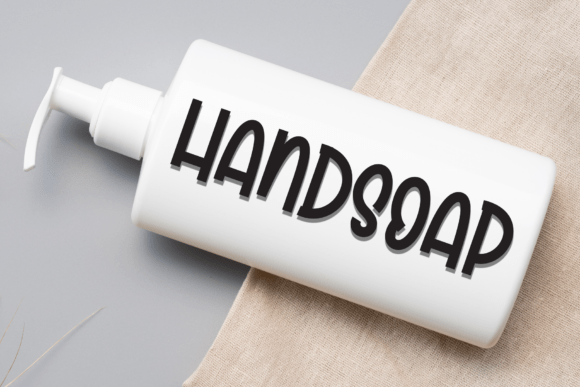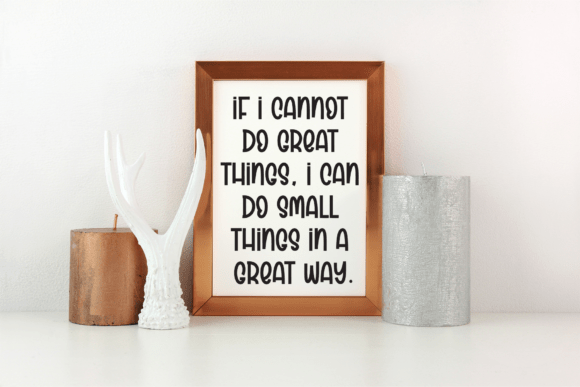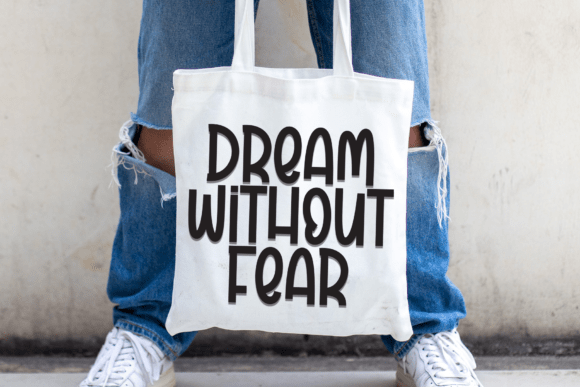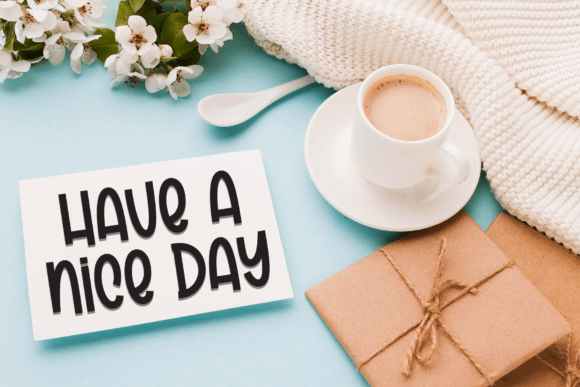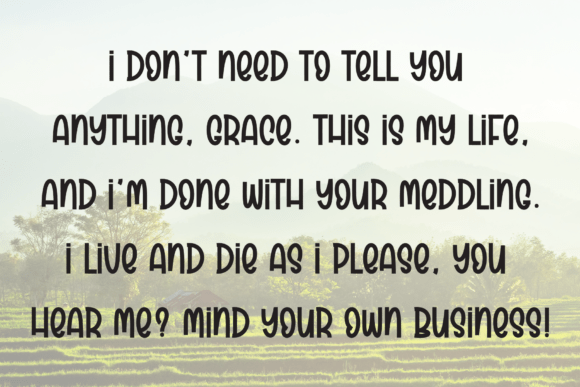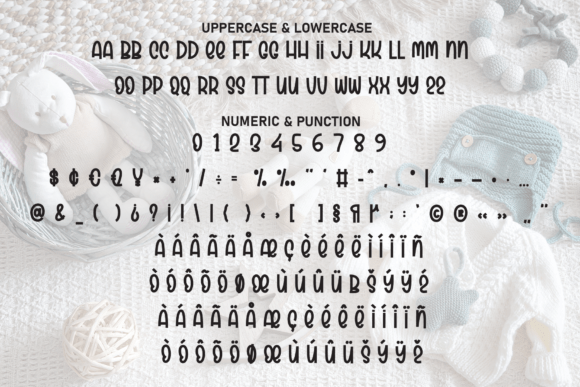
Baby Boho Font: Add a Touch of Whimsy to Your Designs
Are you looking for a font that can add a dash of sweetness and friendliness to your designs? Look no further than the Baby Boho Font! This charmingly authentic, handwritten display font is perfect for personalizing your wedding invitations, cards, or any design endeavor that demands a delightful touch.
What is Baby Boho Font?
Baby Boho Font is a unique and enchanting font that exudes a sense of playfulness and joy. Its distinctive style is sure to lend a charming feel to your stunning visual narrative. This font is designed to add a touch of whimsy to your creative projects, making it perfect for designers and crafters who want to create something truly special.
Key Features of Baby Boho Font
- Handwritten Display Font: Baby Boho Font is a handwritten display font that has a personal and authentic feel to it.
- Sweet and Friendly: This font exudes sweetness and friendliness, making it perfect for designs that require a touch of warmth and personality.
- Playful and Whimsical: The playful and whimsical nature of Baby Boho Font makes it a fabulous choice for adding lightness and joy to your text.
- Perfect for Personalization: This font is perfect for personalizing your wedding invitations, cards, or any design endeavor that demands a delightful touch.
Uses of Baby Boho Font
Baby Boho Font is a versatile font that can be used in a variety of design projects. Here are some of the most popular uses of this font:
- Wedding Invitations: Add a touch of sweetness and friendliness to your wedding invitations with Baby Boho Font.
- Cards and Stationery: This font is perfect for creating personalized cards and stationery that require a touch of whimsy and playfulness.
- Branding and Packaging: Use Baby Boho Font to add a touch of personality to your branding and packaging designs.
- Digital Designs: This font can be used in digital designs such as social media graphics, blog posts, and website headers.
Why Choose Baby Boho Font?
There are many reasons why you should choose Baby Boho Font for your design projects. Here are a few:
- Unique and Authentic: Baby Boho Font is a unique and authentic font that will set your designs apart from the rest.
- Easy to Read: This font is easy to read and understand, making it perfect for designs that require a clear and concise message.
- Customizable: Baby Boho Font can be customized to fit your design needs, making it a versatile font for a variety of projects.
Tips for Using Baby Boho Font
Here are a few tips for using Baby Boho Font in your design projects:
- Use it Sparingly: Use Baby Boho Font sparingly to add a touch of whimsy and playfulness to your designs.
- Pair it with Other Fonts: Pair Baby Boho Font with other fonts to create a unique and visually appealing design.
- Experiment with Colors: Experiment with different colors to find the perfect combination that complements Baby Boho Font.
In conclusion, Baby Boho Font is a charmingly authentic, handwritten display font that exudes sweetness and friendliness. Its distinctive style is sure to lend a charming feel to your stunning visual narrative. With its playful and whimsical nature, this font is perfect for designers and crafters who want to add a touch of whimsy to their creative projects.
Whether you’re designing wedding invitations, cards, or branding materials, Baby Boho Font is a versatile font that can be used in a variety of design projects. So why not give it a try and see how it can add a touch of sweetness and friendliness to your designs?